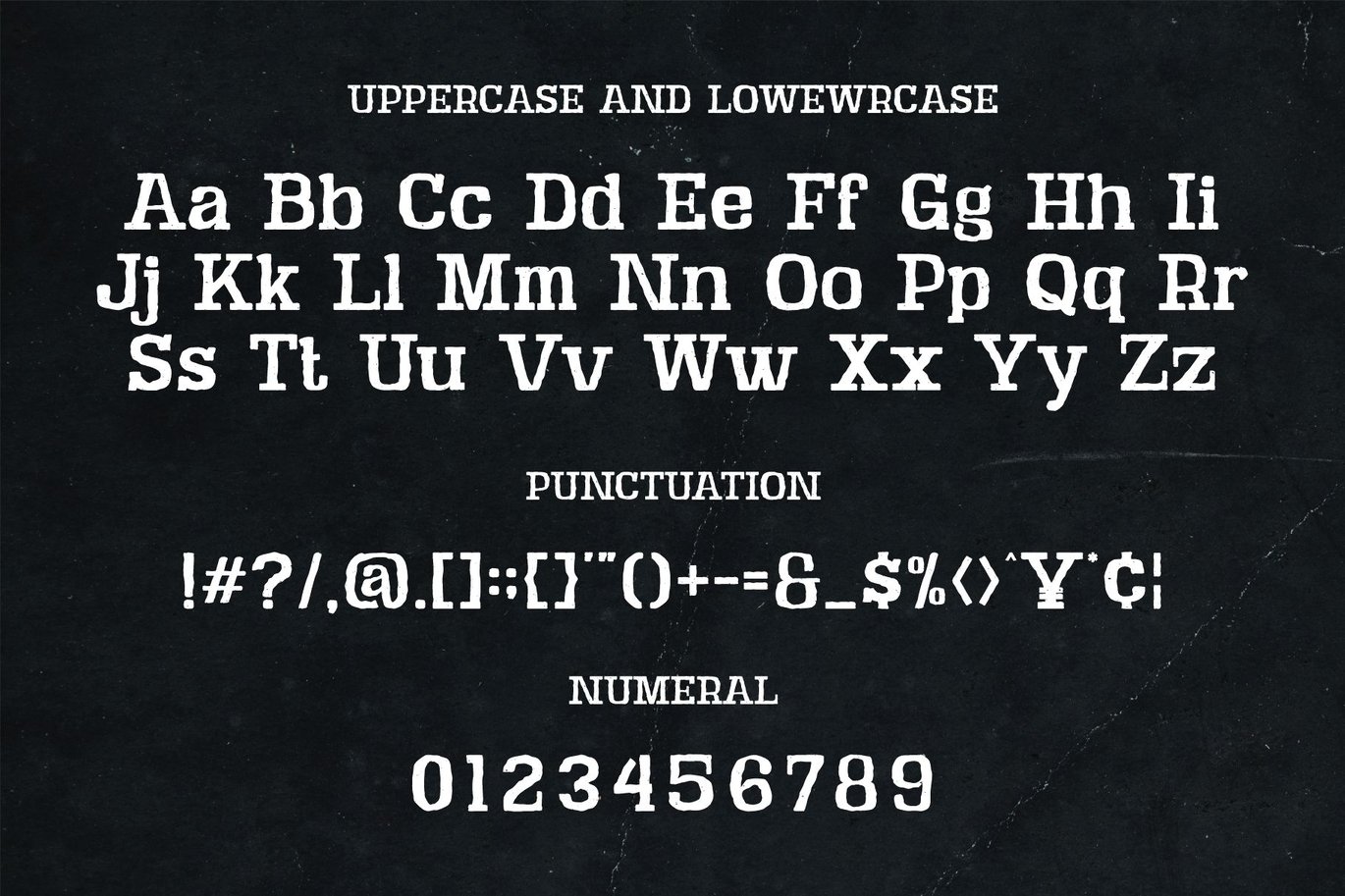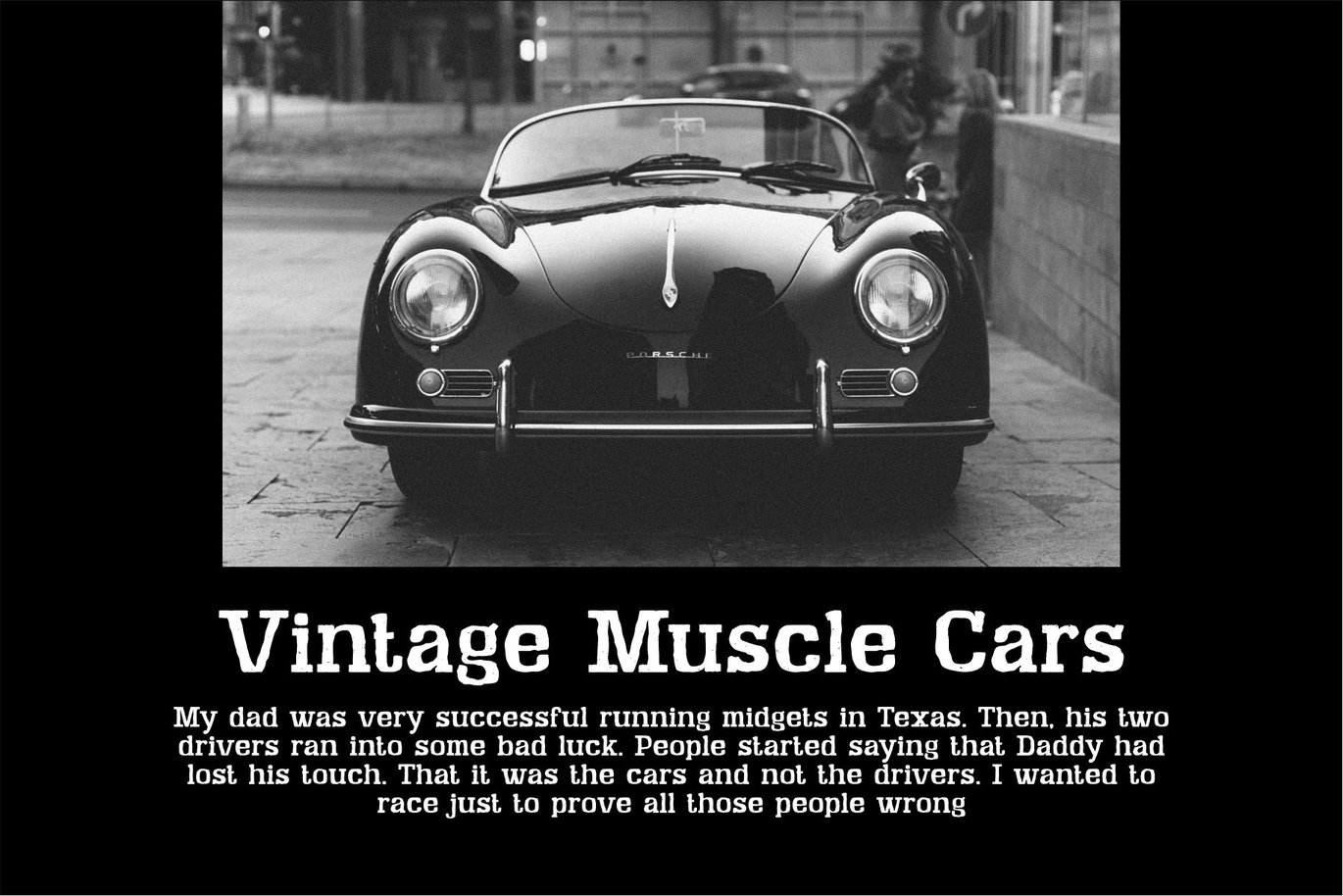
Fahrende Monograd || Typewriter Font
Introducing Fahrende Monograd Display typewriter classic Font is a modern, trendy, bouncy and cute display font. It has a unique character with wood theme. It is perfect to be combined with invitation card designs, company logos, movie titles, movie names, business cards, book titles, brand names and various other designs.
- Uppercase and lowercase
- Numbering and Punctuation